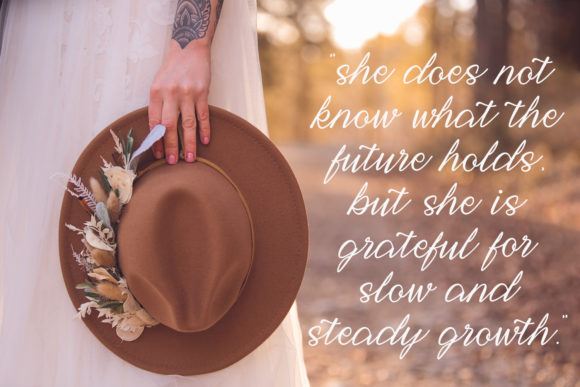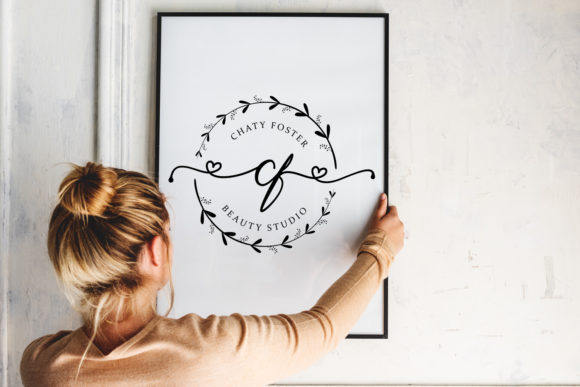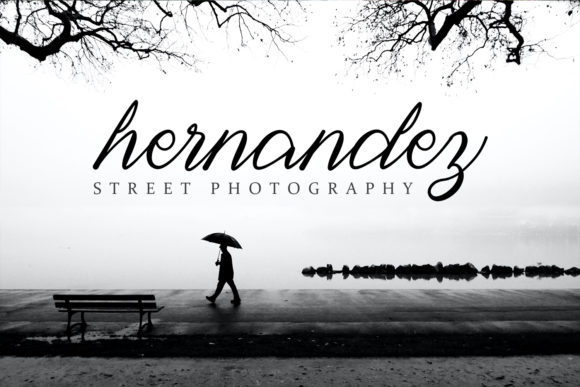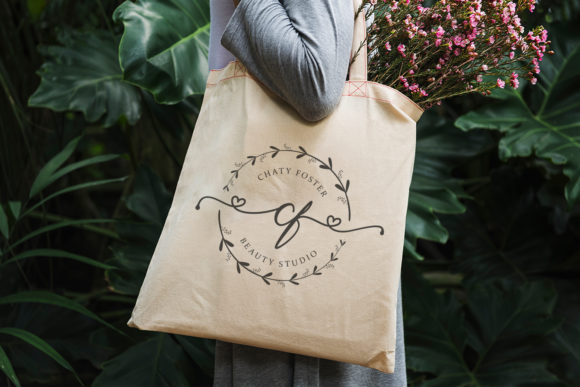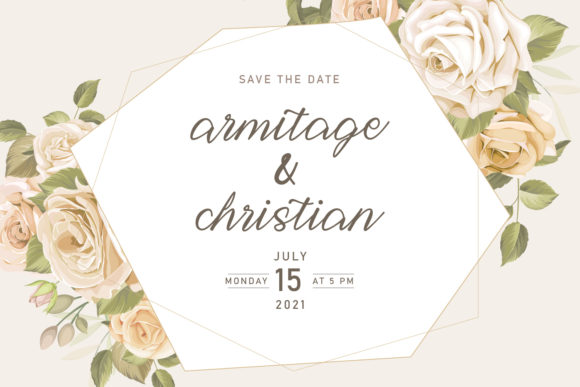
Introducing Darling Font: The Epitome of Romantic Calligraphy
Are you a designer or crafter looking for a font that exudes romance and sweetness? Look no further than Darling Font, a beautiful calligraphy typeface that is sure to capture the hearts of your audience. With its casual yet elegant touch, Darling Font is the perfect choice for a variety of design projects, from wedding invitations and stationery to branding and packaging.
The Unique Charm of Darling Font
Darling Font boasts a distinctive characteristic that sets it apart from other calligraphy fonts: its characters dance along the baseline, creating a sense of movement and fluidity. This charming feature gives your designs a playful, whimsical feel that is sure to delight. Whether you’re creating a romantic wedding invitation or a sweet branding campaign, Darling Font’s unique charm is sure to shine through.
Elegance and Sophistication
Despite its casual nature, Darling Font is also surprisingly elegant and sophisticated. Its refined lines and delicate curves make it perfect for designs that require a touch of luxury and refinement. Whether you’re creating a high-end branding campaign or a beautiful piece of stationery, Darling Font is sure to bring a level of sophistication and poise to your designs.
One of the best features of Darling Font is its PUA (Private Use Area) encoding. This means that you can access all of the font’s glyphs and swashes with ease, giving you a wide range of creative possibilities. With PUA encoding, you can easily insert special characters, ligatures, and swashes into your designs, allowing you to add an extra level of detail and personality to your work.
Darling Font is a versatile typeface that is perfect for both designers and crafters. Whether you’re creating digital designs or handmade crafts, Darling Font is sure to be a valuable addition to your toolkit. Its ease of use and flexibility make it perfect for a wide range of projects, from commercial design work to personal crafting projects.
Ideas for Using Darling Font
- Wedding invitations and stationery: Darling Font’s romantic and elegant feel make it perfect for wedding designs.
- Branding and packaging: Darling Font’s unique charm and sophistication make it a great choice for branding and packaging designs.
- Digital art and illustrations: Darling Font’s playful and whimsical feel make it perfect for digital art and illustrations.
- Handmade crafts: Darling Font’s ease of use and flexibility make it perfect for handmade crafts, such as card making and scrapbooking.